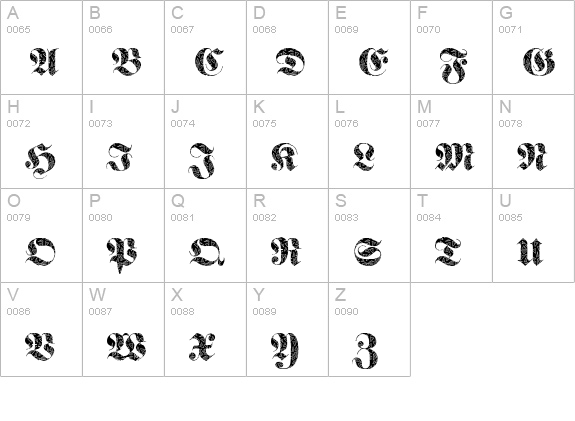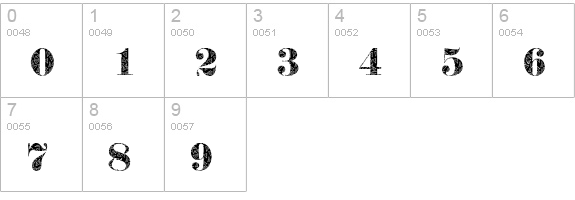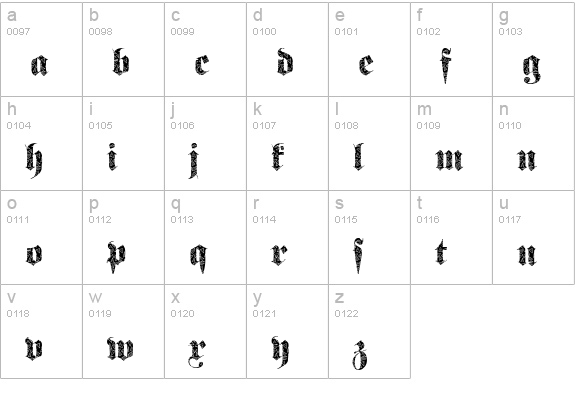
FrakturBrokenGlass2-Regular is the standard, neutral variant in the FrakturBrokenGlass2 typeface family \xE2\x80\x94 well suited to general body text, paragraphs, and standard typographic work.
FrakturBrokenGlass2-Regular is a captivating and edgy font that exudes a sense of mystery and intrigue. Its fractured and jagged letterforms give off a shattered glass effect, adding a unique and unconventional touch to any design project. This font is perfect for creating eye-catching headlines, posters, and branding materials that demand attention. Best of all, FrakturBrokenGlass2-Regular is available for free download at FontsMarket.com. Whether you're a designer looking to add a bold and daring element to your work or simply someone who appreciates the artistry of typography, this font is a must-have addition to your collection. Download it today and unleash your creativity with this striking and unforgettable typeface.